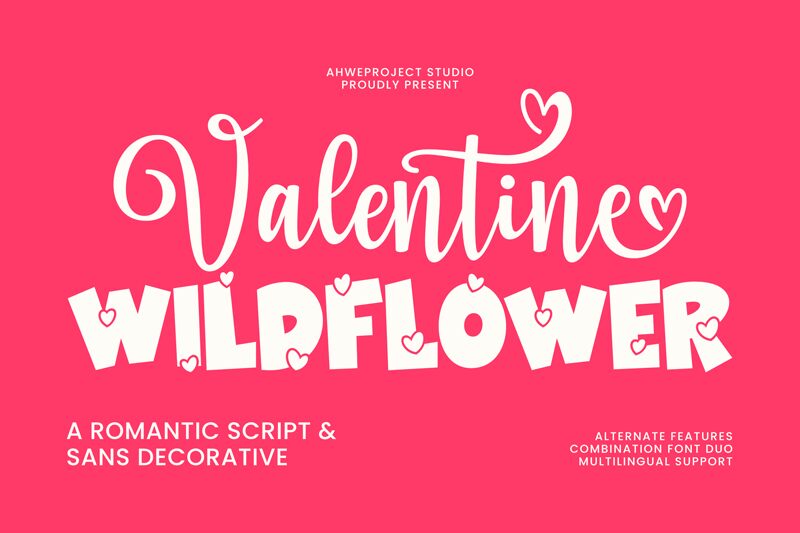
Valentine Wildflower Sans Demo
Valentine Wildflower Sans font by Ahweproject is a free comic Valentine typeface that turns every word into a bubbly love note. Chunky, hand-drawn letters with uneven edges feel like they’ve been doodled in a notebook, while the scattered heart and flower cutouts add a playful, handmade charm. The tight, energetic spacing keeps headlines bold and dense, giving your layouts an instant “crafted with love” vibe.
Using Valentine Wildflower Sans, this free font shines on Valentine cards, kids’ posters, party invitations, stickers, social posts, and sweet-themed packaging. It works beautifully as a loud, joyful headline while you keep body text in a simple rounded sans for balance. Try it big and close-set for maximum impact, letting the quirky shapes and inky silhouettes bring your romantic or playful designs to life.